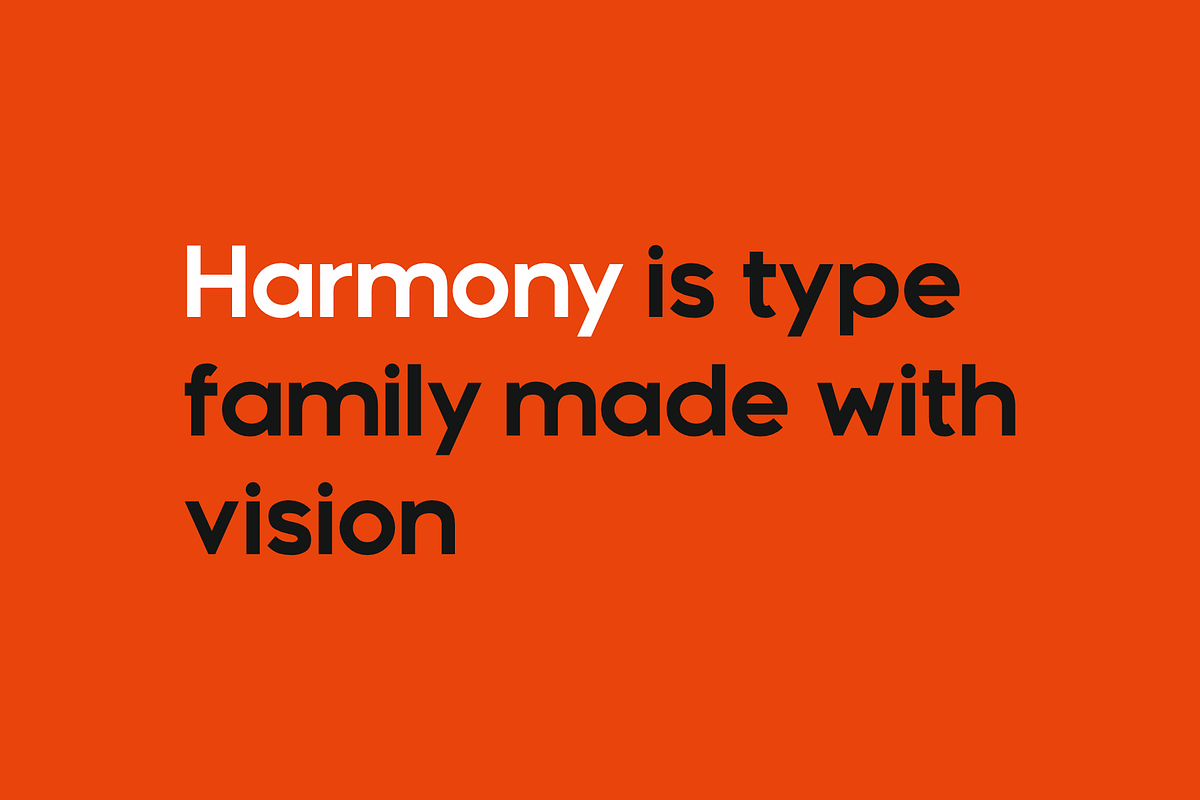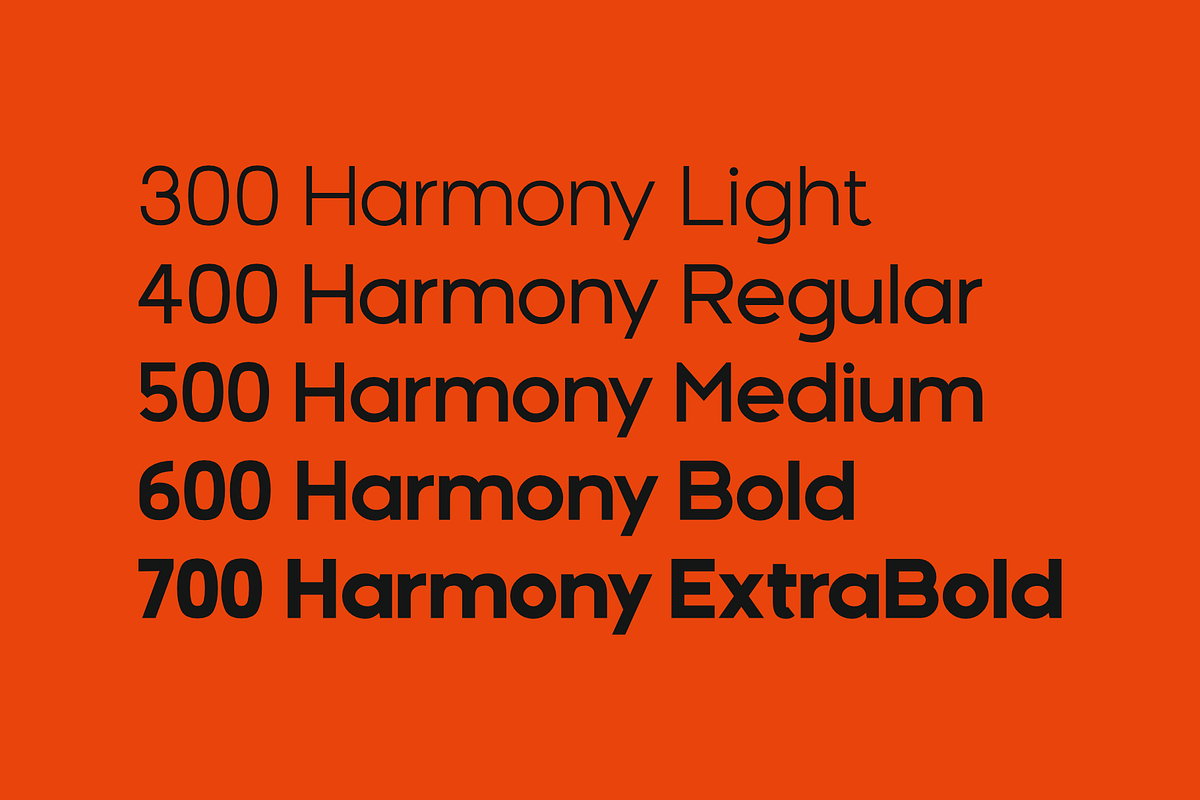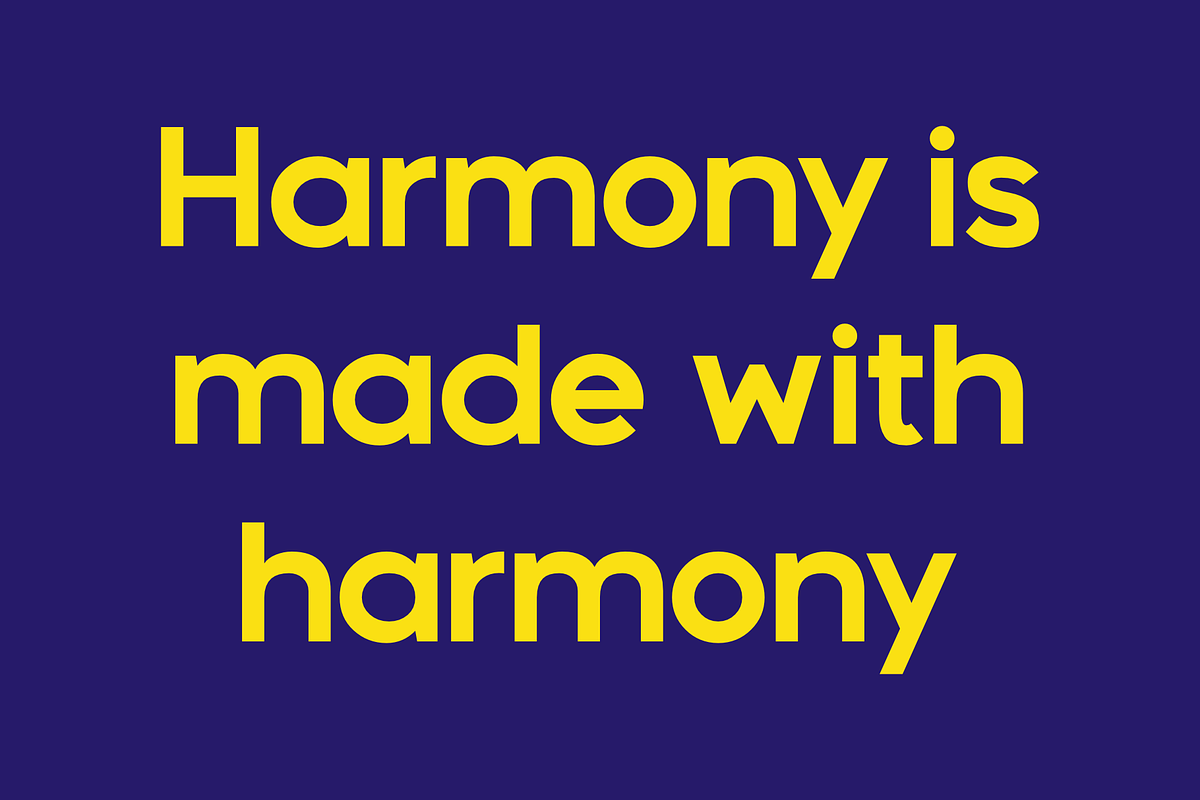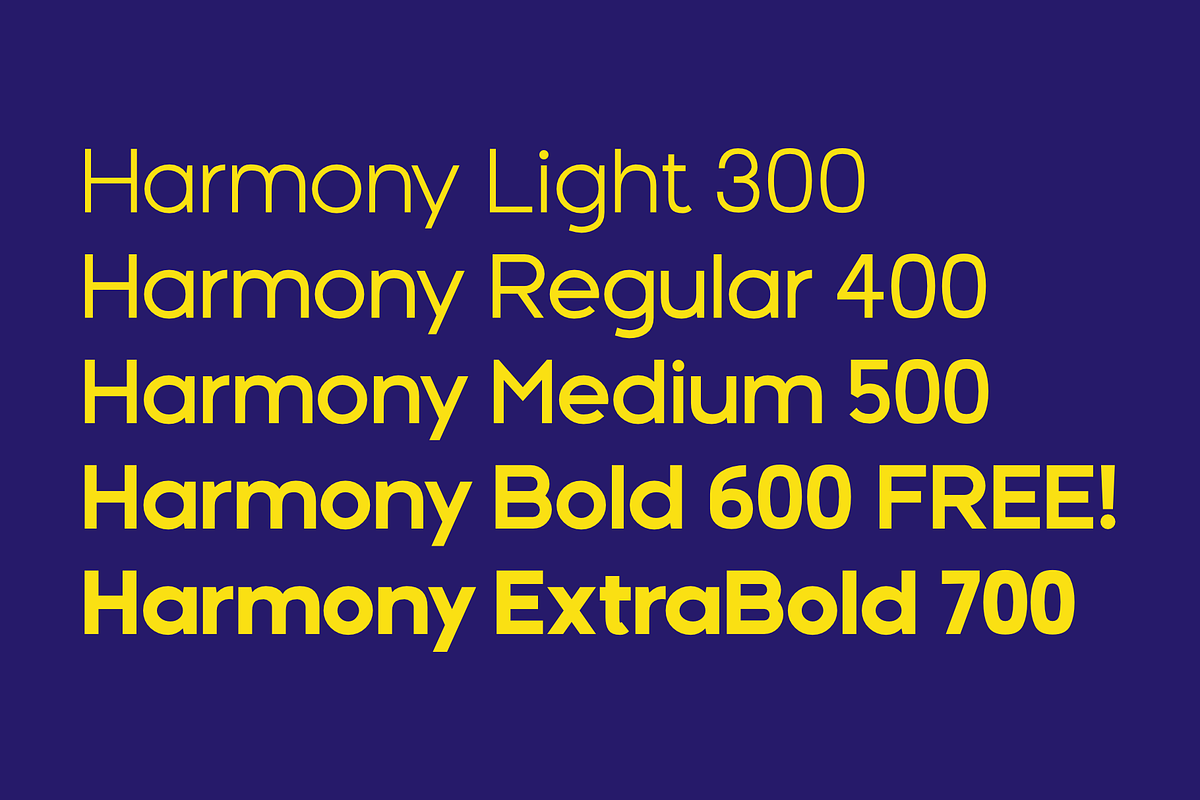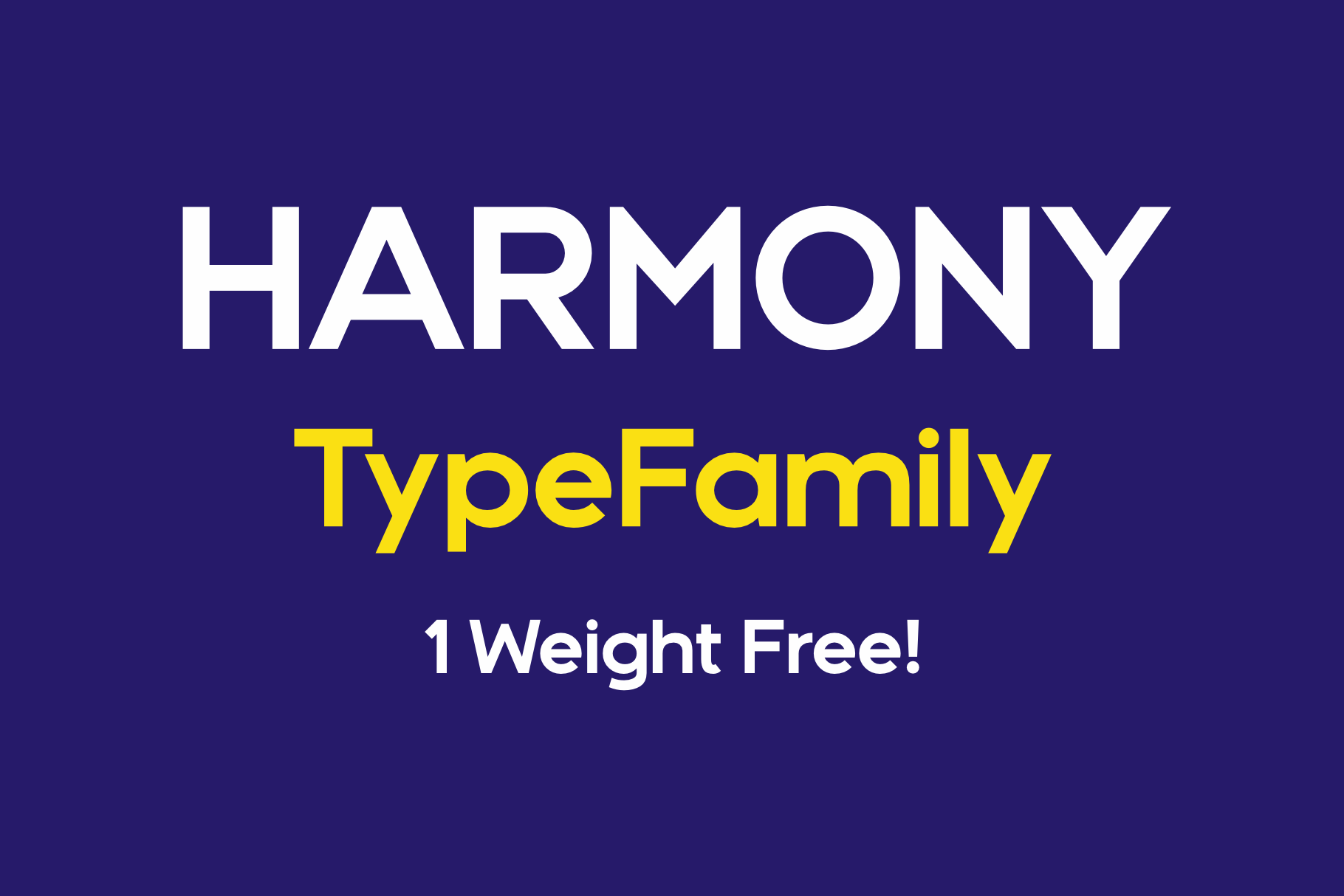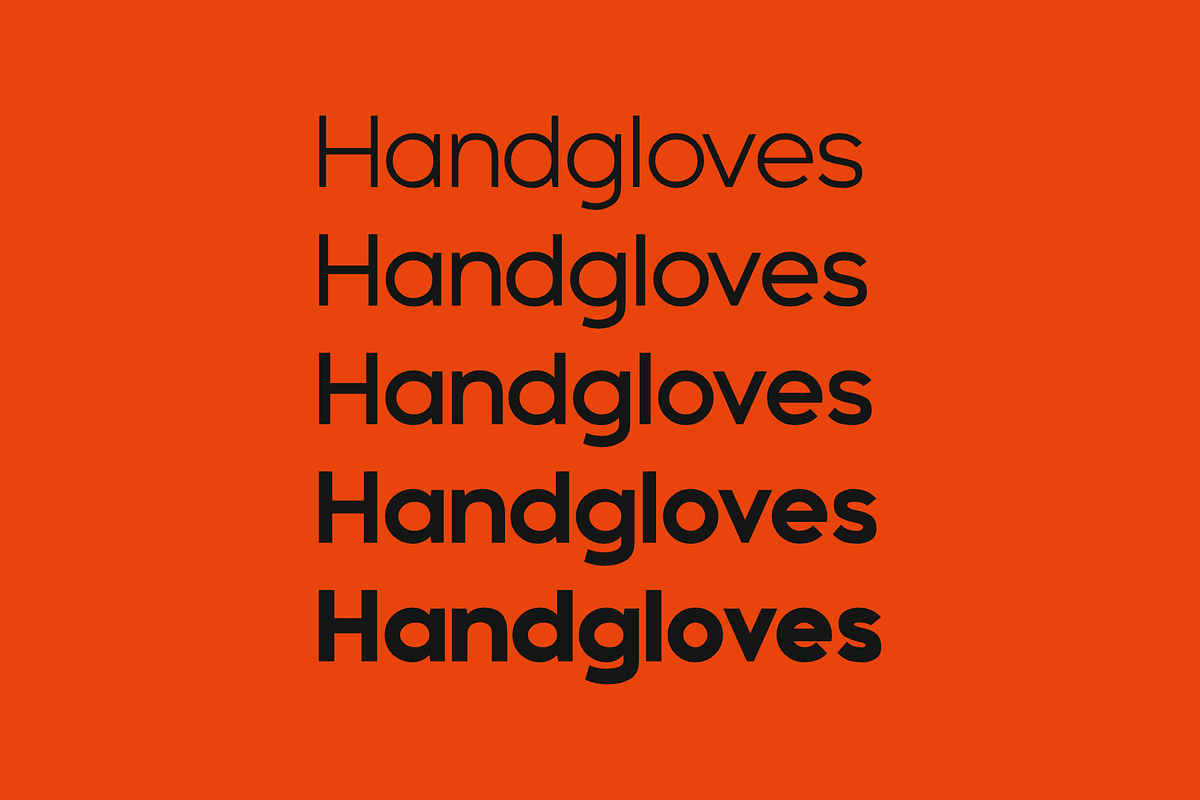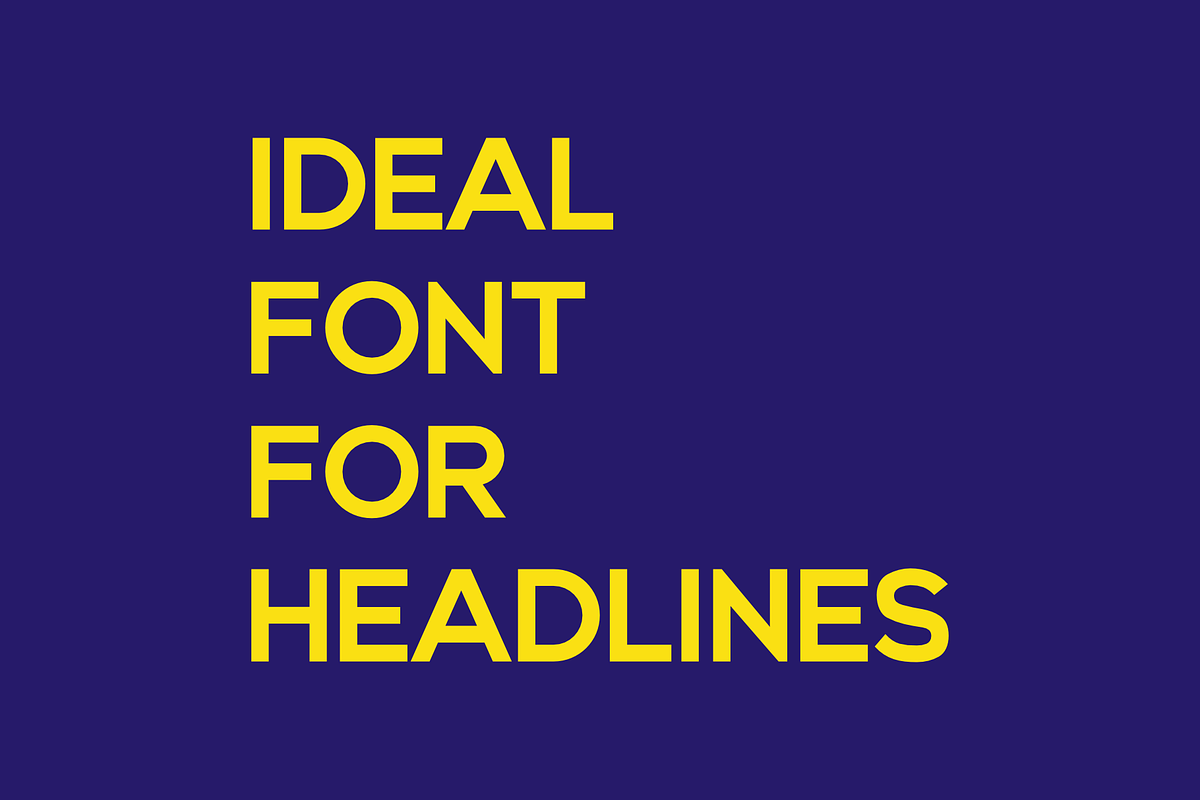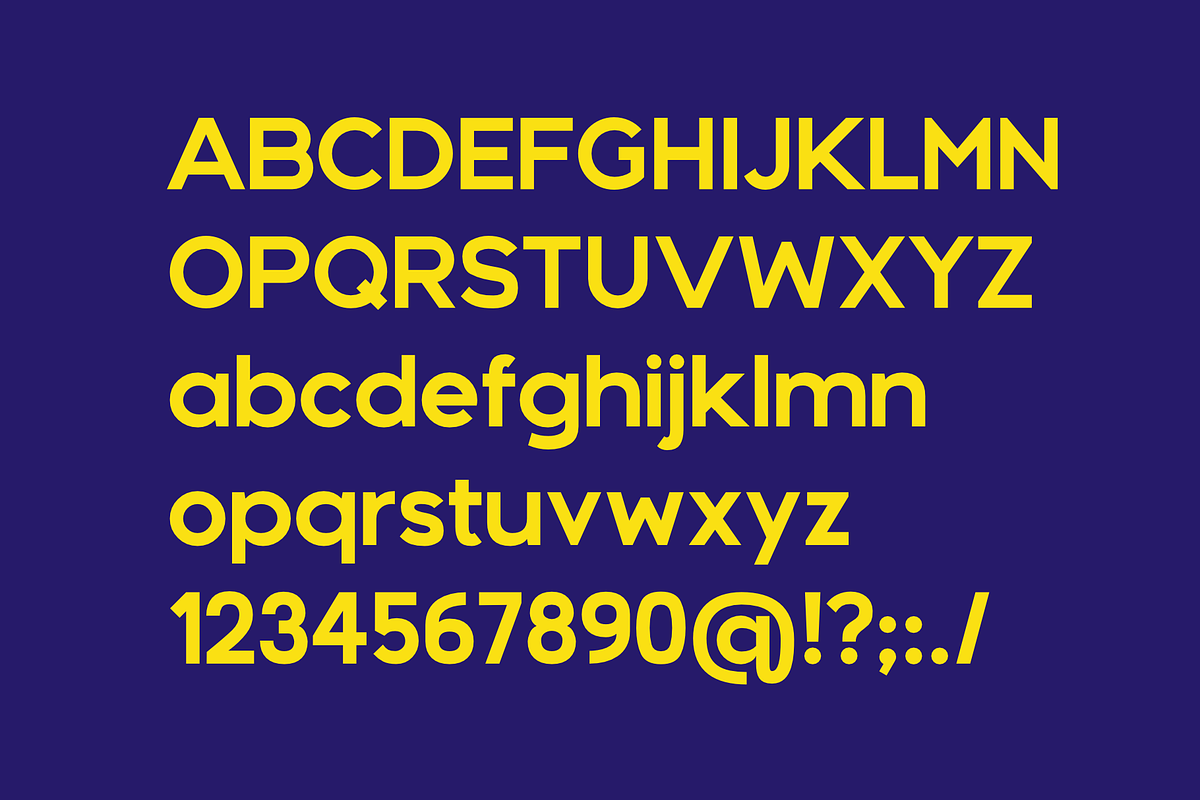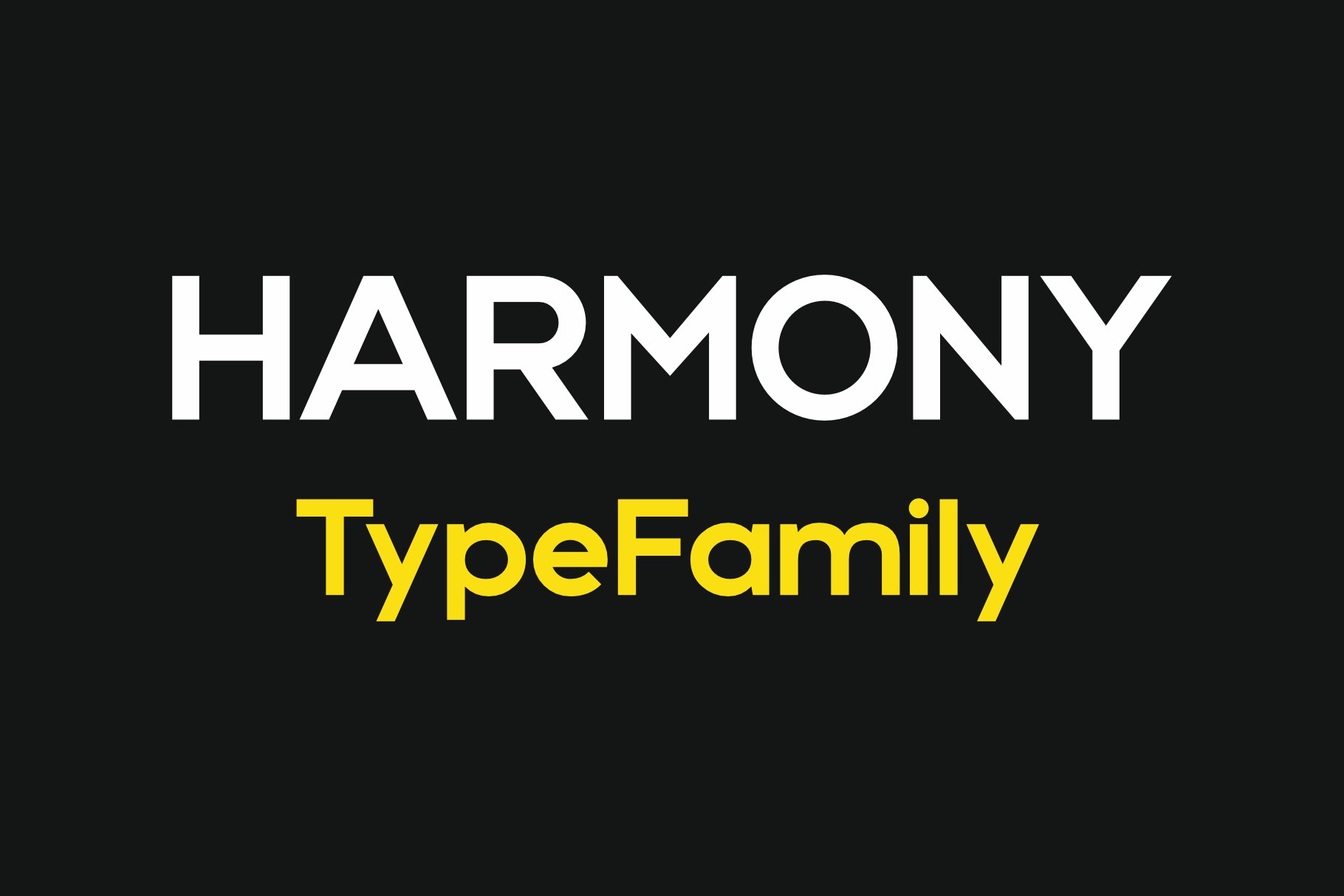
Harmony sans serif typefamily
Geometric sans serif typefamily. Five Weights. From light to ExtraBold. Unique look. Glyphs inspired by simplicity and simple geometric shapes. Usefull for logos, book covers, business cards and more.